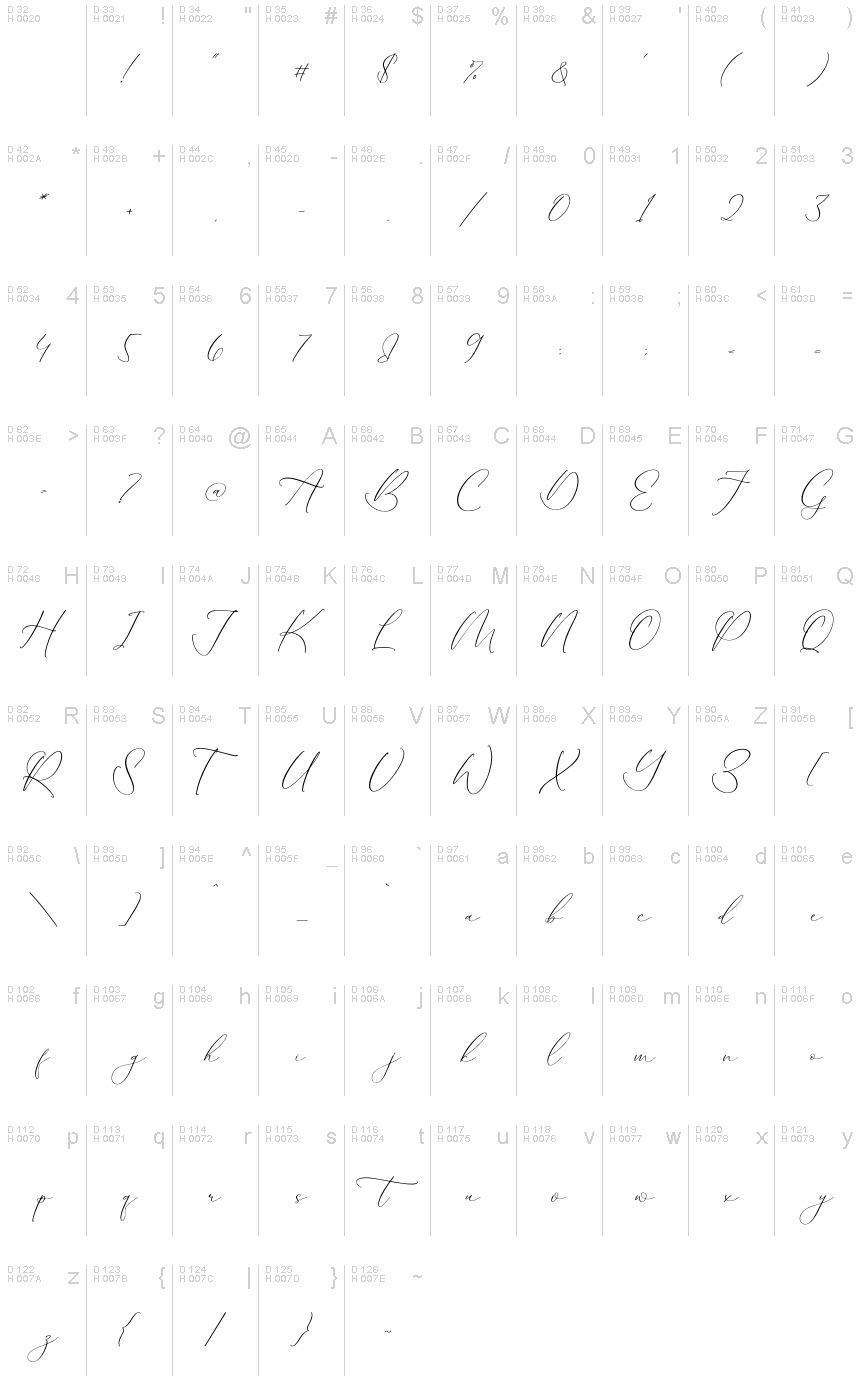
authentiue
Authentiue font by Storytype Studio captivates with its exquisite calligraphic style and graceful, light form. This free font exudes elegance, characterized by its flowing script and delicate lines that convey a sense of sophistication and finesse. The sweeping strokes and airy composition make it a perfect choice for projects demanding a touch of refinement, such as wedding invitations, logo designs, or high-end branding.